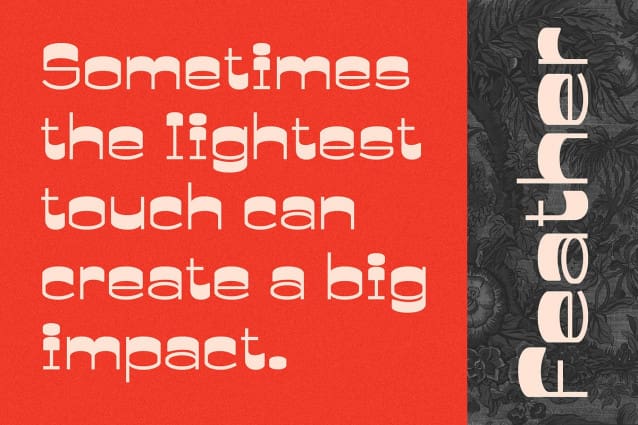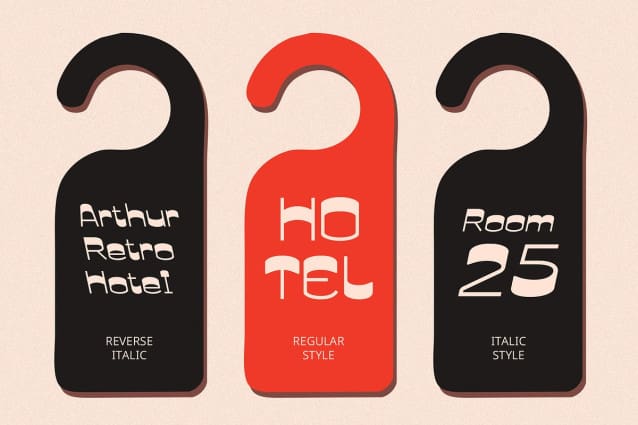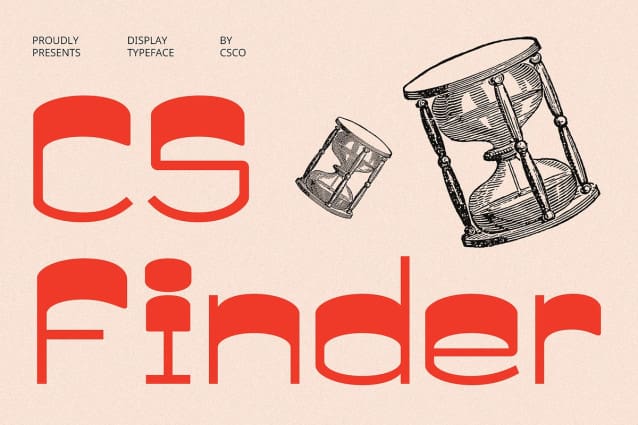
CS Finder Font
CS Finder Font is a classic display font that captures the essence of bold typography through its reverse contrast design. Featuring thick and thin strokes, this font creates a striking visual effect, with a dynamic look that commands attention. The reverse contrast adds depth and energy, making CS Finder ideal for designs that aim to make a strong impression. Its unique combination of boldness and elegance makes it perfect for both contemporary and vintage-inspired projects.
90s-Inspired Retro Design Drawing inspiration from the bold typography of the 1990s, CS Finder embodies the essence of nostalgia. Its vintage appeal channels the dynamic energy and rebellious spirit of the era, making it ideal for projects that seek to capture the playful, creative vibe of the past. Whether for branding or promotional materials, it speaks to those with a sense of fun and flair.
Perfect for Bold and Playful Designs With its striking letterforms and reverse contrast, CS Finder is perfect for designs that demand attention. It is well-suited for projects such as posters, event branding, and product packaging that need to showcase boldness, creativity, and a sense of playful nostalgia.